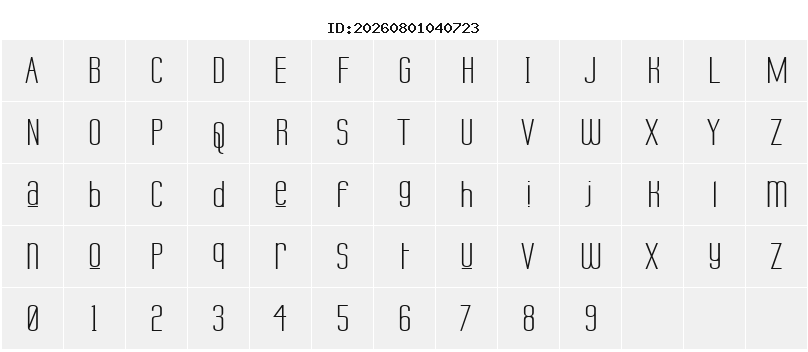
About Labtop Unicase Upper Wide.ttf
Labtop Unicase Upper Wide.ttf is a modern, elegant sans-serif font designed for ultimate readability and visual harmony. Perfect for branding, headlines, web design, and print materials.